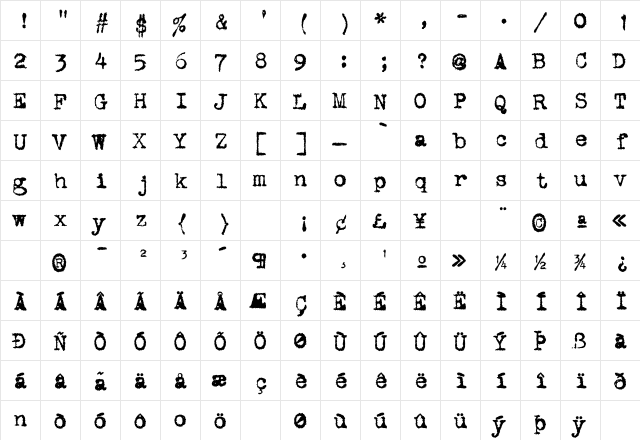
VTCorona Regular
Design Context for VTCorona Typeface
VTCorona is a composed and adaptable typeface that performs quietly and consistently across a wide range of design contexts.